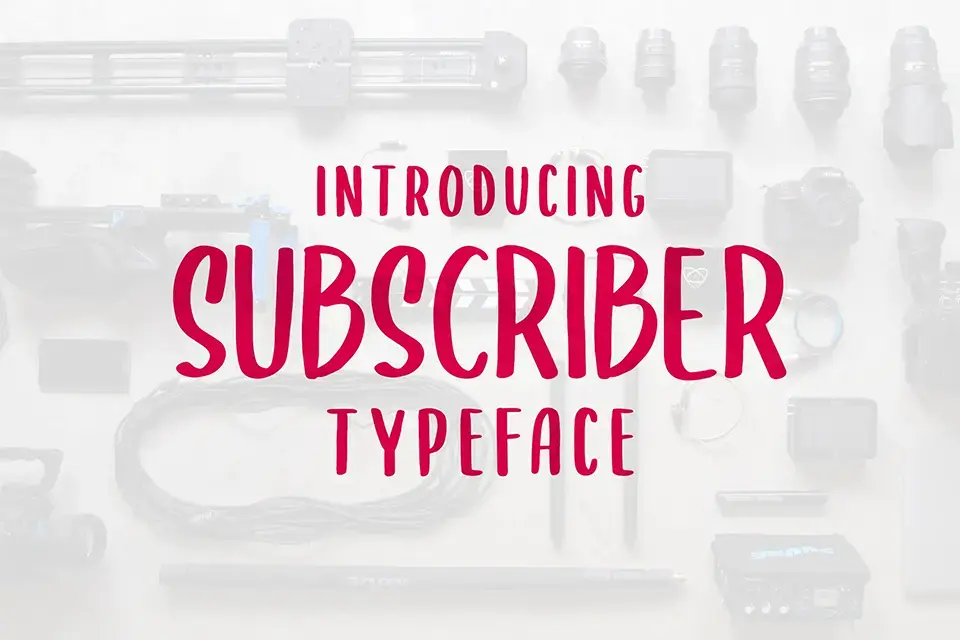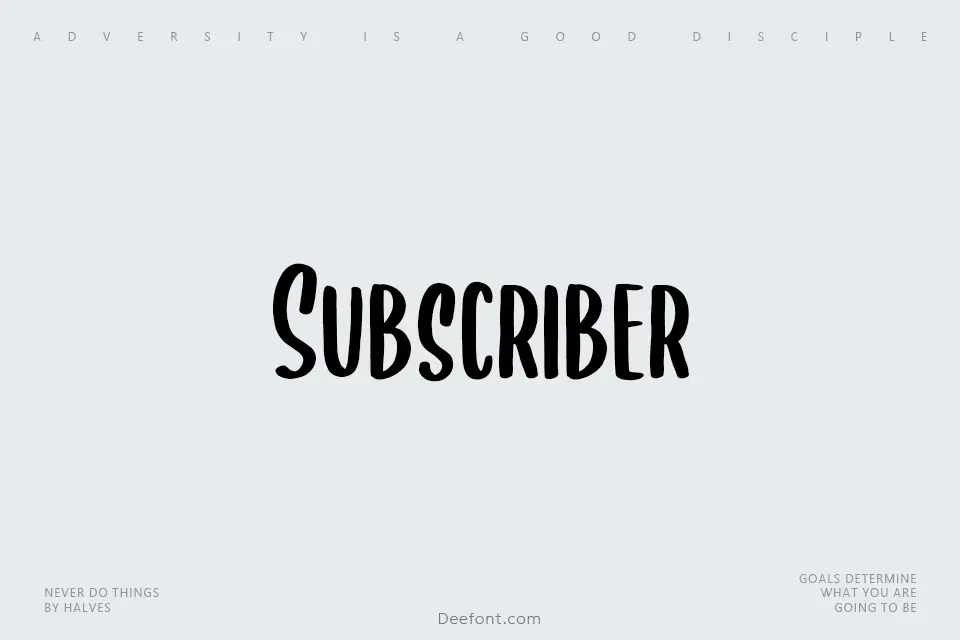
Subscriber Font
Subscriber Font is an expressive handwritten script that captures a relaxed, contemporary aesthetic ideal for designs that don't take themselves too seriously. With organic letterforms and a distinctly casual flair, this font excels at creating engaging headlines, food menu designs, wall murals, social media graphics, and poster text. The flowing strokes and playful character make it perfect for adding warmth and personality to packaging design, invitations, and display applications. Whether used for fashion branding or creative editorial work, Subscriber brings authentic human touch to any modern design project.